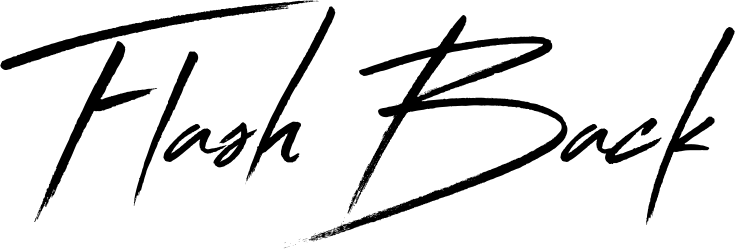
Flash Back Font
Hey, welcome to the new friendly 80s font! This Flash Back is a handwriting font that appears to have been created by drawing a pen or pencil. These can be divided into a very elegant casual or rough style that resembles calligraphy.
This script font is very suitable for use in stationery, branding, logotypes, greeting cards, poster design, etc. If you want to create a natural or playful sense in your short texts, you can count on this font. Enjoy!